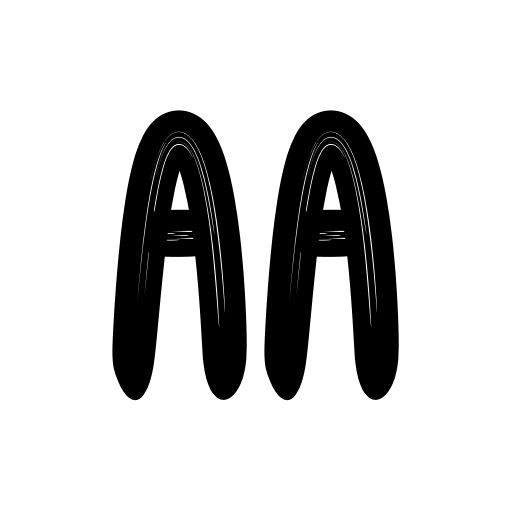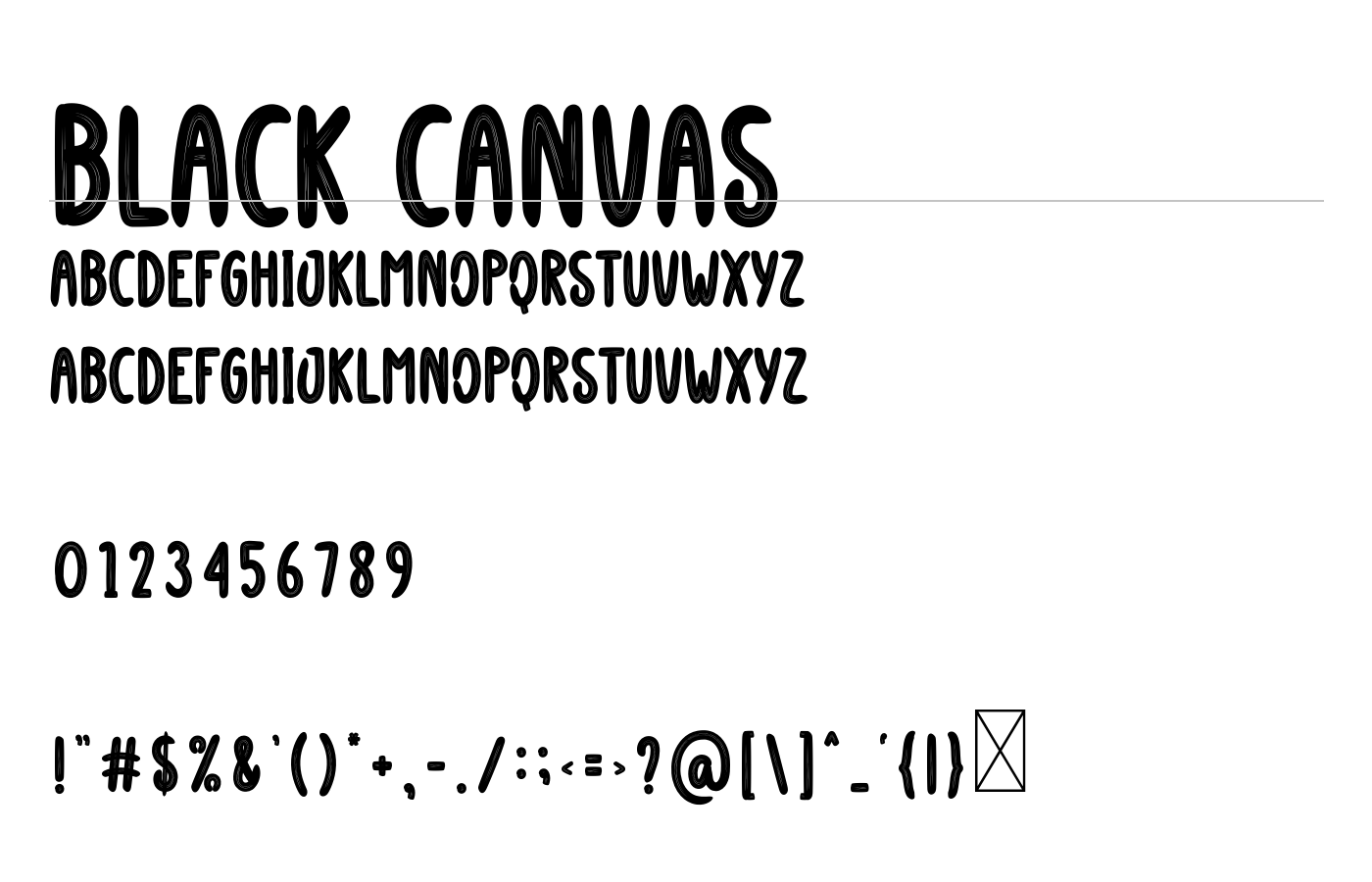
Black Canvas is a bold, playful sans serif font featuring tall, slightly condensed letterforms with a hand-drawn, casual feel. Its rounded strokes and lively irregularities give it a friendly and informal personality, making it perfect for creative, fun branding, posters, and headlines where a relaxed, approachable vibe is desired. This font works well in contexts that need a touch of whimsy while maintaining good readability.
Black Canvas Font